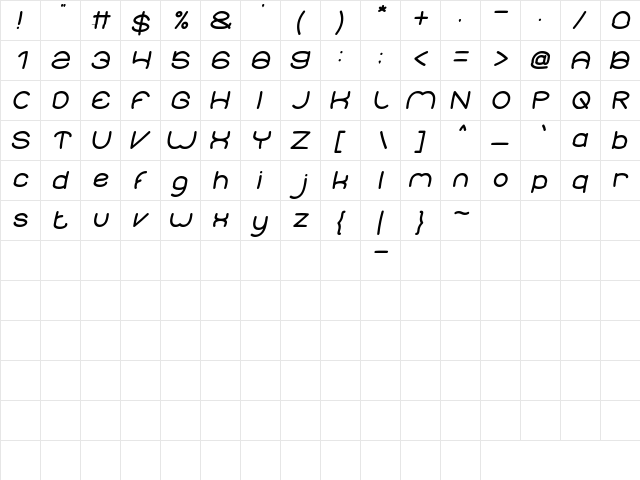
Elementary Bold Italic
Design Context for Elementary Typeface
Elementary offers clean, dependable letterforms without strong stylistic allegiance, making it a practical choice for designers who need flexibility. Its italic angle brings a sense of urgency and motion to the letterforms. The heavy weight commands attention and anchors typographic hierarchies.
Pro Tip: Use Elementary for emphasis, pull quotes, and subheadings where its slanted energy can add rhythm to the layout.